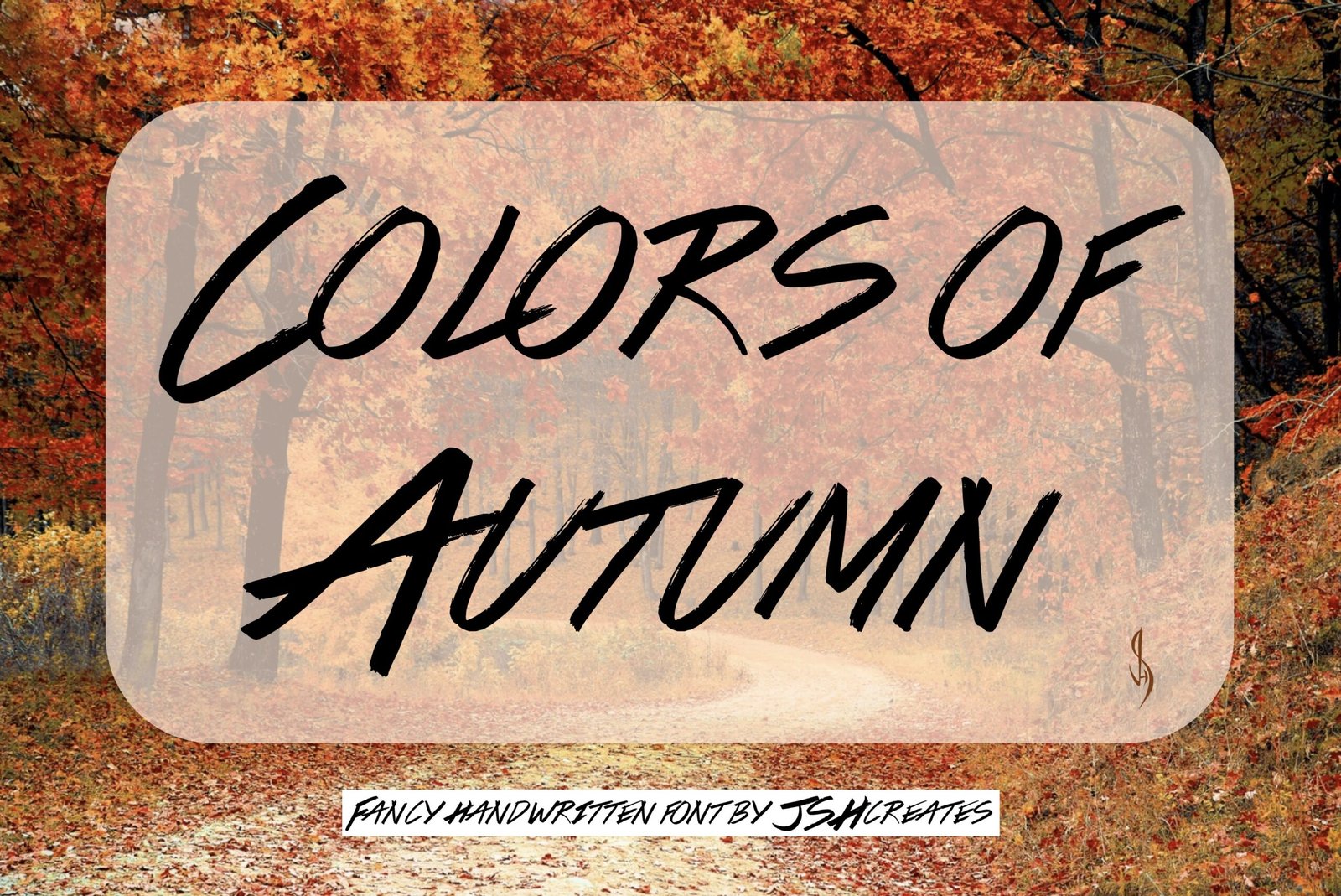
Colors of Autumn Font
Cool handwritten script font. “Colors of Autumn”. Perfect for advertising and display purposes, including banners, book covers, shirts, posters, logos and much more!
Font includes all uppercase and lowercase letters, numbers, characters, punctuation and euro characters.